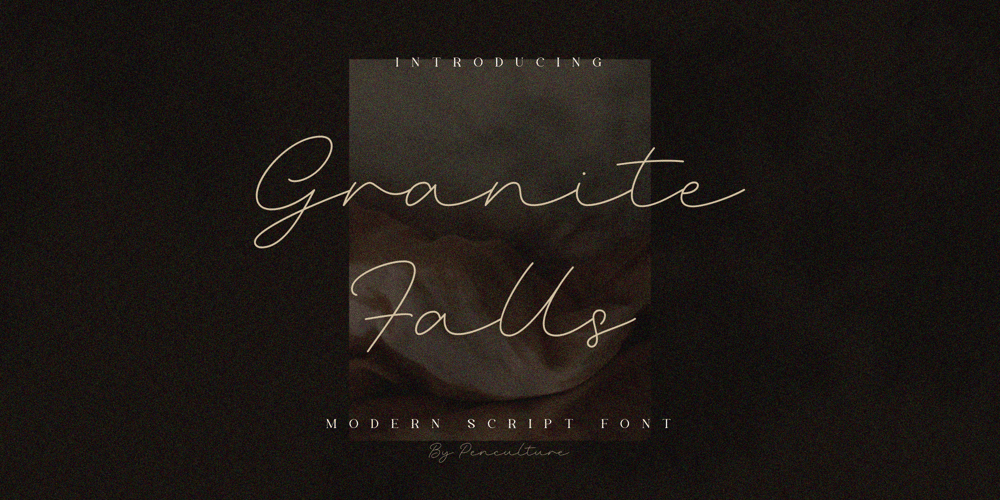
Granite Falls Font Family was designed by Revo Farsiky and published by Pen Culture. Granite Falls contains 1 styles and family package options. Introducing Granite Falls, a captivating modern font that effortlessly blends elegance with contemporary style. With its sleek lines and refined letterforms, this font brings a touch of sophistication to any project.The carefully crafted characters maintain a perfect balance between simplicity and uniqueness, making it ideal for a wide range of design applications. Whether it’s branding, logos, headlines, or social media graphics, Granite Falls adds a modern and trendy flair.What will you get:Granite Falls SVG fileI really hope you enjoy it – please do let me know what you think, comments & likes are always hugely welcomed and appreciated. More importantly, please don’t hesitate to drop me a message if you have any issues or queries.Thank you